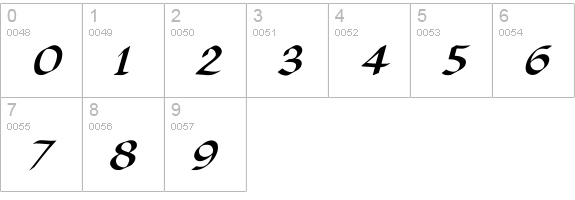
Viking-Normal Italic Font Details
Viking-Normal Italic is the standard, neutral, italic variant in the Viking typeface family \xE2\x80\x94 well suited to general body text, paragraphs, and standard typographic work.
Introducing the captivating and versatile Viking-Normal Italic font, a magnificent addition to any design project. This font effortlessly exudes a sense of strength and adventure, reminiscent of the fearless Vikings that once roamed the lands. With its sleek and slanted italic design, Viking-Normal Italic adds an element of elegance and sophistication to any text. This font's carefully crafted letterforms embody the essence of Viking culture, with bold and powerful strokes that demand attention. Whether used for headlines, logos, or body text, Viking-Normal Italic commands the viewer's gaze, leaving a lasting impression. What's even more remarkable is that Viking-Normal Italic is freely available to download at FontsMarket.com. This means that you can unleash the full potential of this font in your projects without any financial constraints. Now, you can embark on your creative journey with Viking-Normal Italic, knowing that it won't cost you a penny. Harness the raw energy and spirit of the Vikings with Viking-Normal Italic. Let its distinctive and dynamic forms transport you to a world of epic tales and grand adventures. Download this font today at FontsMarket.com and embark on a typographic voyage like no other.